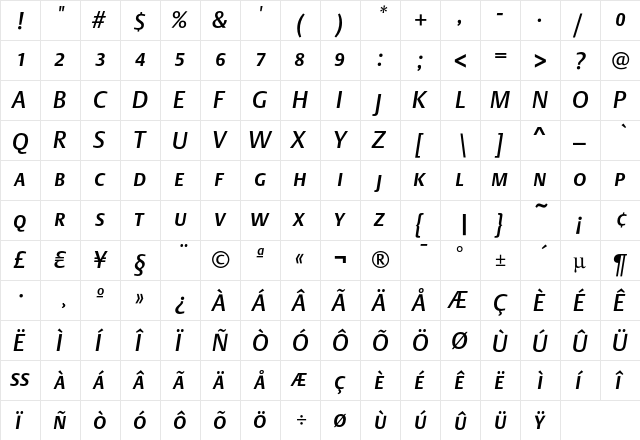
DTLArgoTCaps MediumItalic
Design Context for DTLArgoTCaps Typeface
DTLArgoTCaps is a composed and adaptable typeface that performs quietly and consistently across a wide range of design contexts. The slanted form adds forward momentum and visual energy.